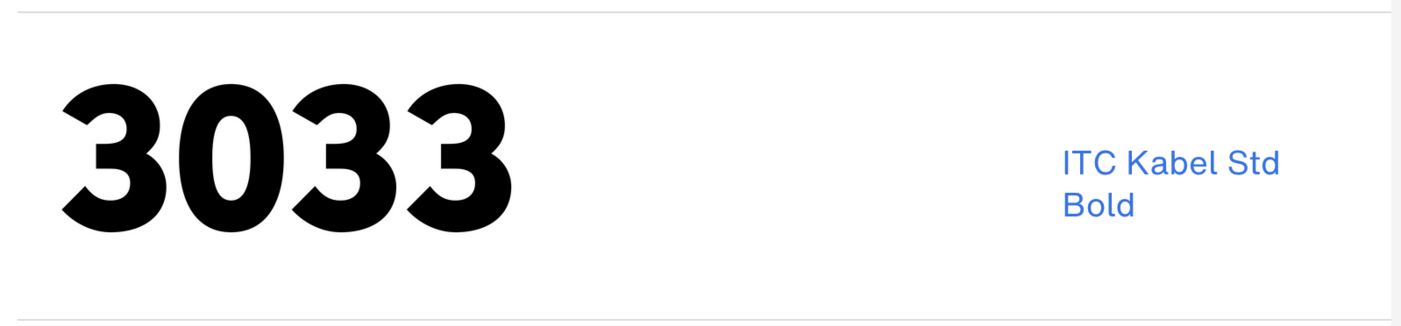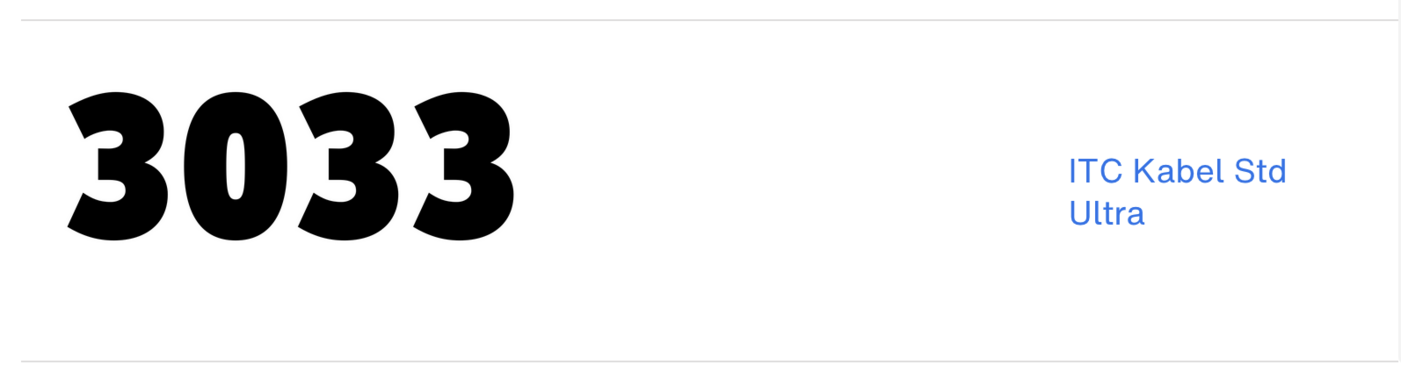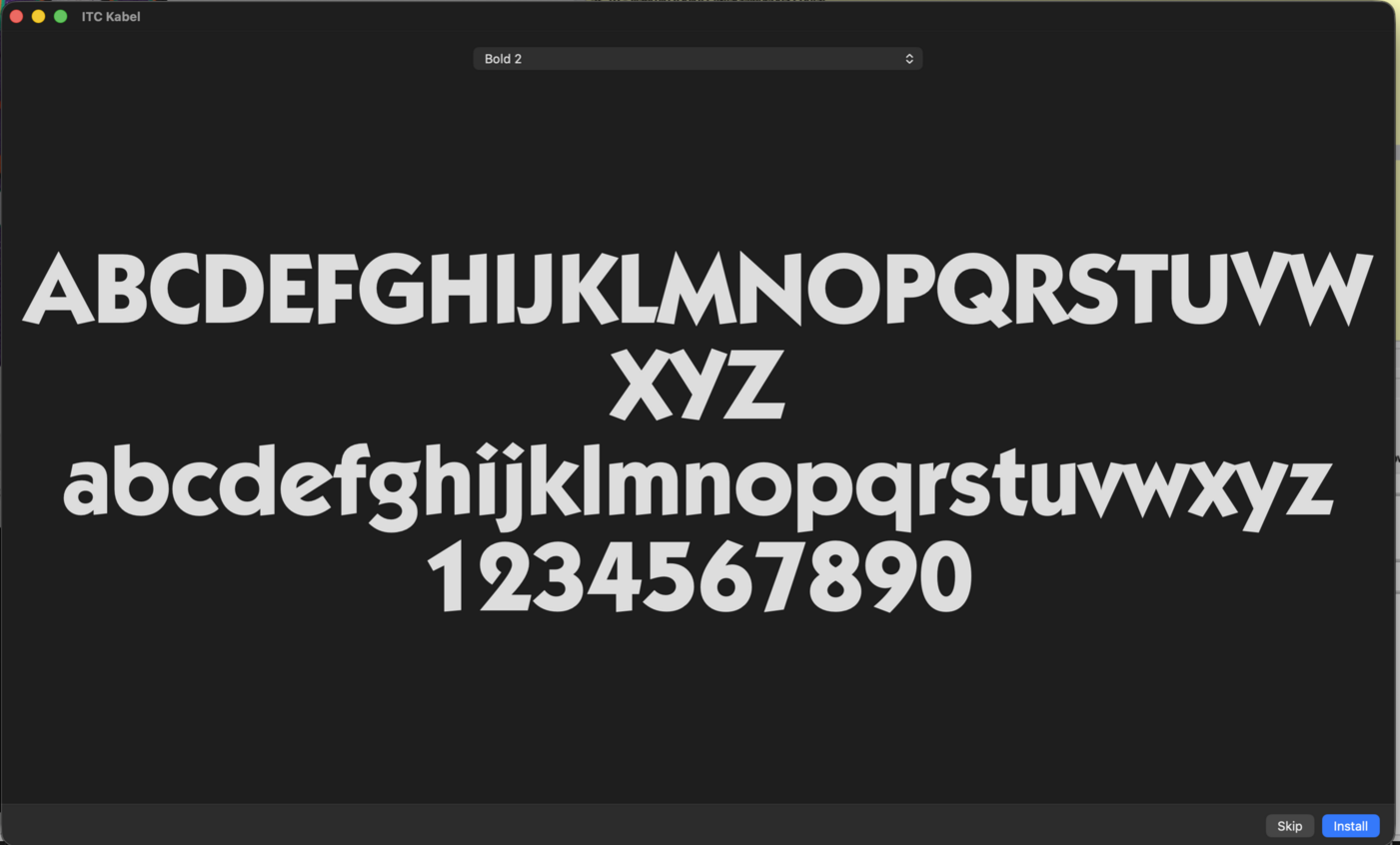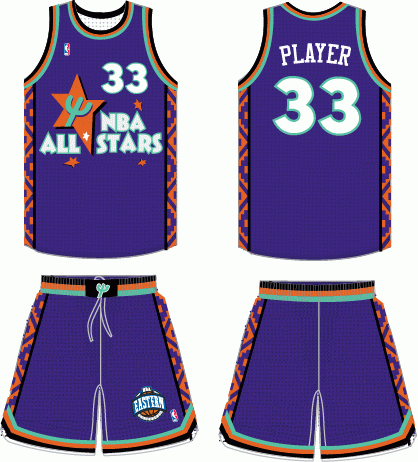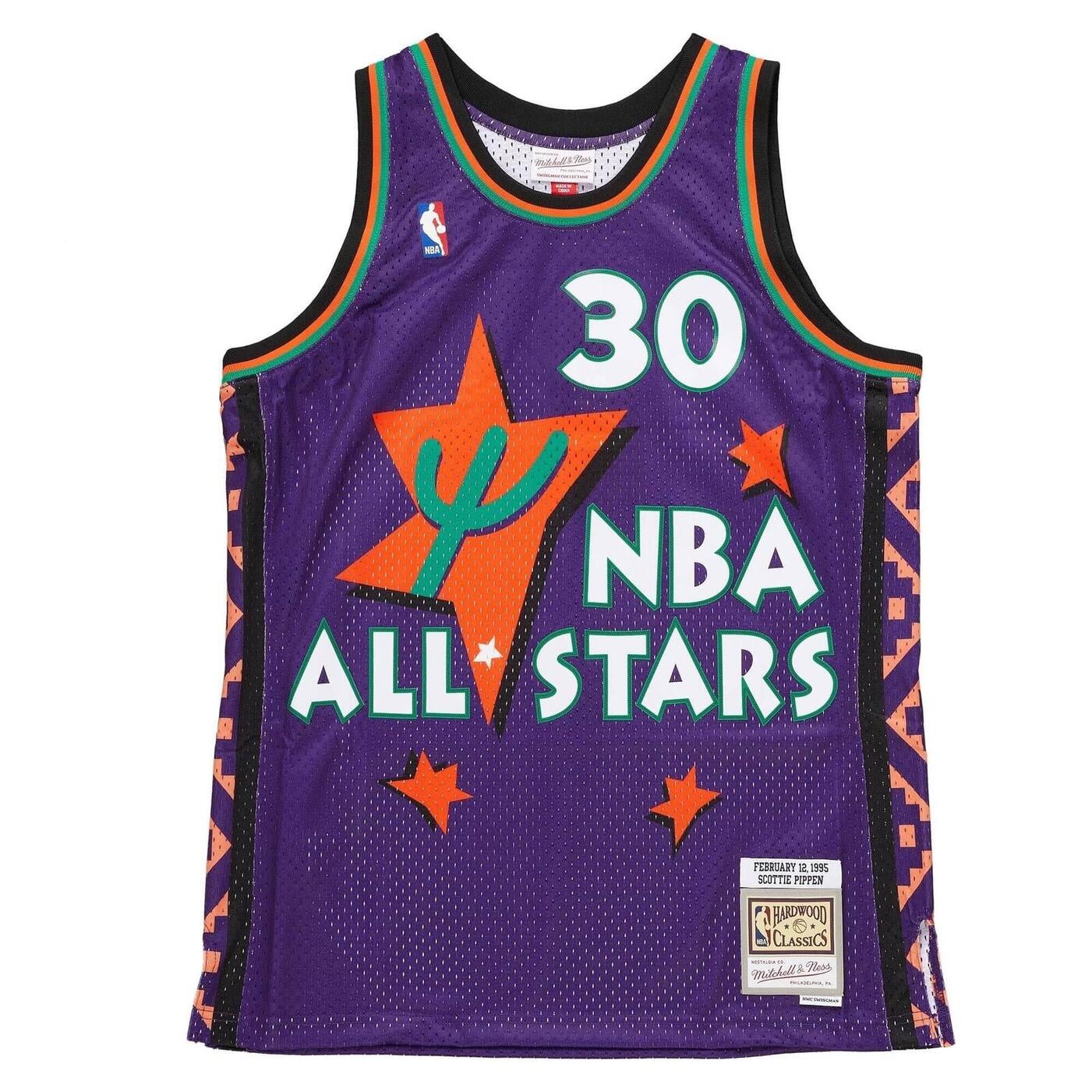
NBA All Stars 1995 font identification
I need to know what is the font of the "NBA ALL STARS" text, and the number 33. I don't know if both fonts are the same or not.
The "PLAYER" text font is not important, but if anyone know it, it's welcome.
This jersey was used in the NBA All Star Game in 1995.
I think it's a font without any customization. Angela Narrow is very similar, but is not exactly the same (for the letters NBA ALL STARS).
And I don't know what is the font of "33".
33 seems to be ITC Kabel: the Ultra weight works well for the three, but the zero is closer to the Bold weight. Also a match to other numbers seen on photos on this site.
Based on a much larger, sharper image, Lithos Black (artificially condensed) may be a better match for NBA ALL STARS (but still customized).
Very few logotypes, especially for that level of a client, are straight settings of a typeface.